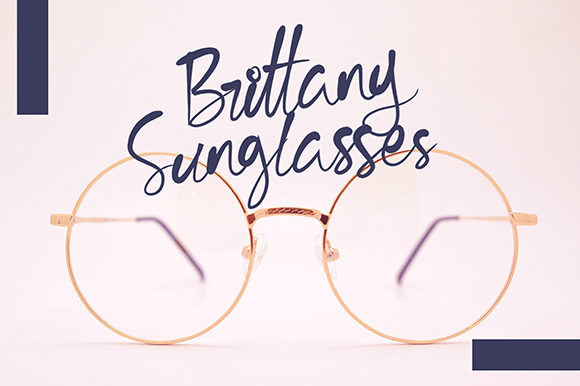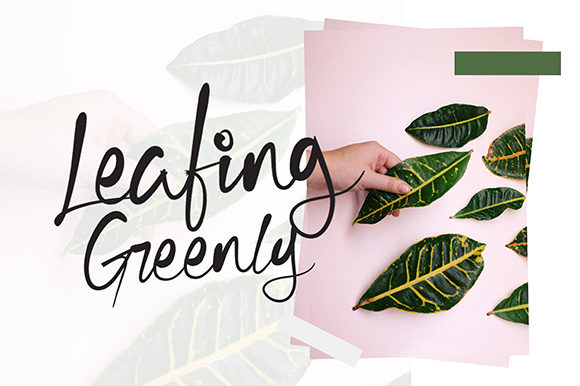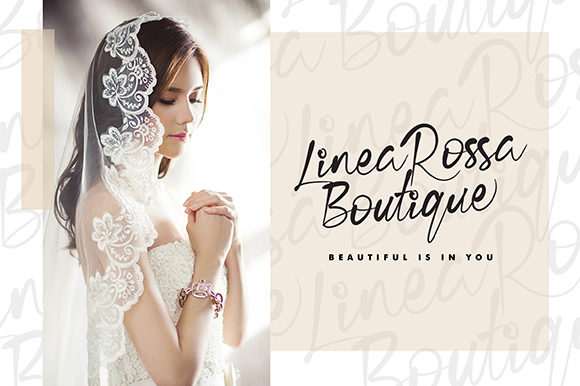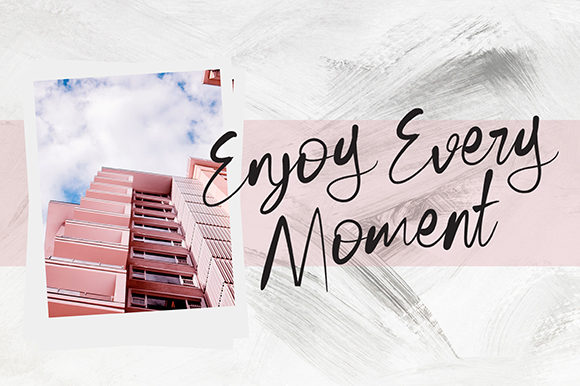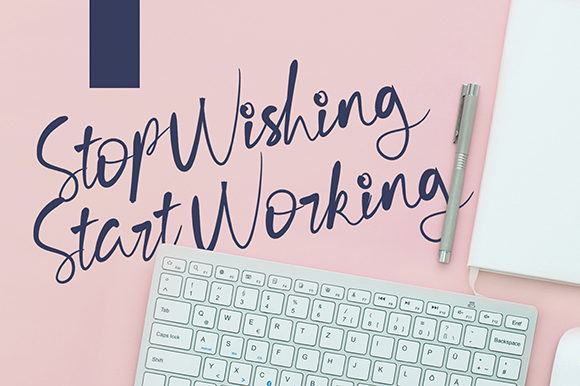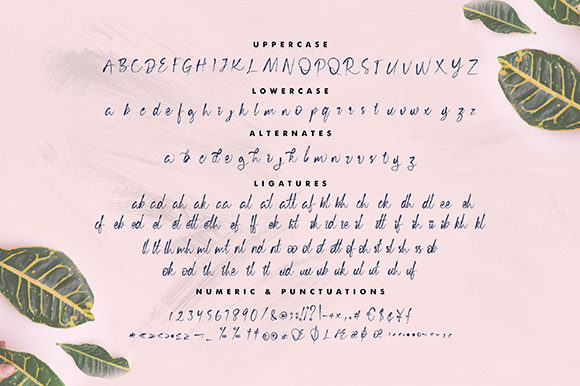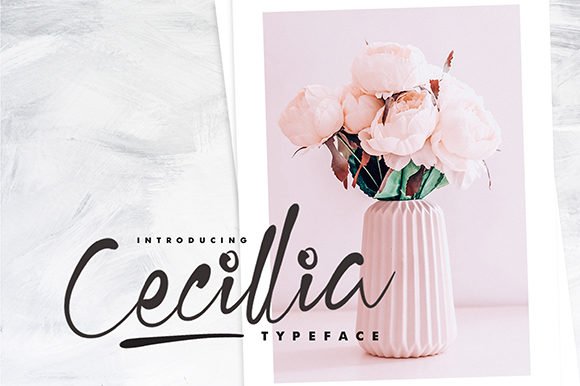
The Perfect Touch of Elegance with Cecilia Script Font
Have you ever been brainstorming ideas for a new design project, and suddenly, a vision of beautiful handwritten text pops into your head? For designers, this moment of inspiration is what drives creativity and sets our work apart. And what better way to bring that vision to life than with a stunning font like the Cecilia Script Font?
This gorgeous handwritten typeface boasts a natural writing style that’s not only visually appealing but also incredibly readable. Whether you’re designing a luxurious brochure, a high-end wedding invitation, or a premium brand identity, the Cecilia Script Font is the perfect choice to add a touch of elegance and sophistication.
As a designer, you know how valuable it is to have a versatile font that can elevate your designs and make them stand out. The Cecilia Script Font is a game-changer, offering a unique blend of style and functionality that’s sure to impress your clients and enhance your reputation.
Cecilia Script Font Key Features
- Font Size: Available in 5 font sizes: 12, 14, 18, 24, and 36 points
- Resolution: Supports high-resolution printing at 300 DPI and 600 DPI
- Unique Characteristics: Elegant, cursive script with a touch of vintage flair; ideal for creative, artistic, and design projects
- Language Support: Supports over 200 languages, including Latin, Cyrillic, and Greek alphabets
- Font Weight: Available in Regular, Italic, Bold, and Bold Italic weights
Cecilia Script Font Review
As a designer, I was excited to try out the Cecilia Script Font. Overall, I have mixed feelings about this font. ✨ One thing that I love about Cecilia Script is its elegant and sophisticated look. The font is perfect for creating a luxurious and high-end feel in any design project. The flowing lines and gentle curves of the letters give it a beautiful, handwritten feel that’s hard to resist.
- ✨ Elegant and sophisticated look
- ✨ Perfect for creating a luxurious and high-end feel
- ✨ Beautiful, handwritten feel
However, I do have a few ⚠️ limitations to mention. Firstly, the font can be quite difficult to read in smaller sizes, which may make it challenging to use in certain design projects. Additionally, the font is not as versatile as some other script fonts, which may limit its usability in certain contexts.
- ⚠️ Difficult to read in smaller sizes
- ⚠️ Not as versatile as some other script fonts
Overall, I would give the Cecilia Script Font 3.5 out of 5 stars. While it’s a beautiful font with a lot of character, its limitations may make it less suitable for certain design projects.
Cecilia Script is a beautiful, elegant font perfect for:
Formal event invitations and announcements
Wedding and event signage
To get the most out of Cecilia Script, use it for titles, headings, and short paragraphs of text. Experiment with different font sizes and colors to create a visually appealing design.
What is the recommended font size and line spacing for optimal readability?
For optimal readability, we recommend using the Cecilia Script Font at a minimum size of 12 points. Additionally, a line spacing of 1.5 to 2 times the font size is recommended to ensure clear and easy-to-read text. This will help maintain the aesthetic appeal of the font while ensuring legibility.